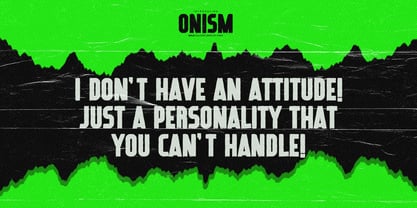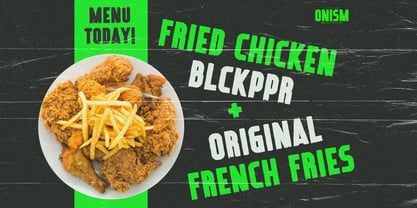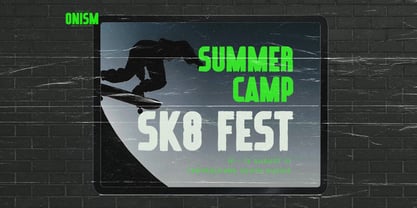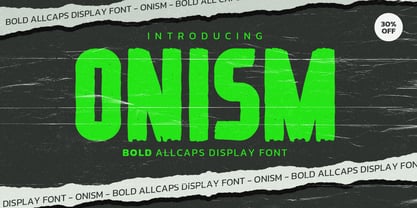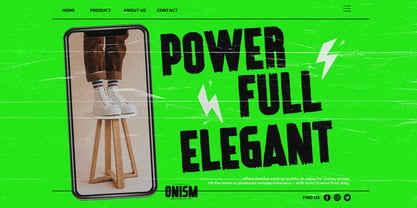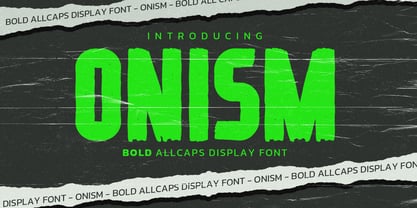
Onism
by Almarkha Type
The Onism Font Family was designed by Abdul Malik Wisnu and published by Almarkha Type. Onism contains 1 styles. More about this family
Onism is a bold all-caps display typeface designed to deliver raw strength, visual impact, and unapologetic character in every composition. Featuring heavy letterforms, rough edges, and powerful proportions, Onism commands attention with a loud, confident presence perfect for designs that need to stand out instantly. Crafted with a strong industrial feel and expressive textures, this typeface embraces imperfection and attitude. Its chunky shapes and solid construction create a striking rhythm, making Onism ideal for modern branding, statement headlines, and bold visual storytelling.
Designers: Abdul Malik Wisnu
Foundry: Almarkha Type